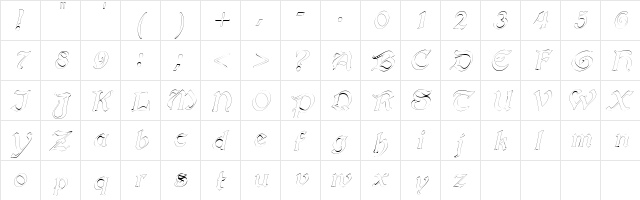
InnkeeperOutline Italic
Design Context for InnkeeperOutline Typeface
InnkeeperOutline is built around its visual character rather than neutral utility — its distinctive forms are designed to make an impression at display sizes. The dynamic lean of this cut emphasises speed and emphasis in any layout.
Font Pairing: Pair with a clean neutral sans-serif for body copy to let InnkeeperOutline's character lead without overwhelming the composition.
Pro Tip: Use InnkeeperOutline exclusively at display sizes — it was designed to be seen, not read at length. Let a neutral companion handle body copy.